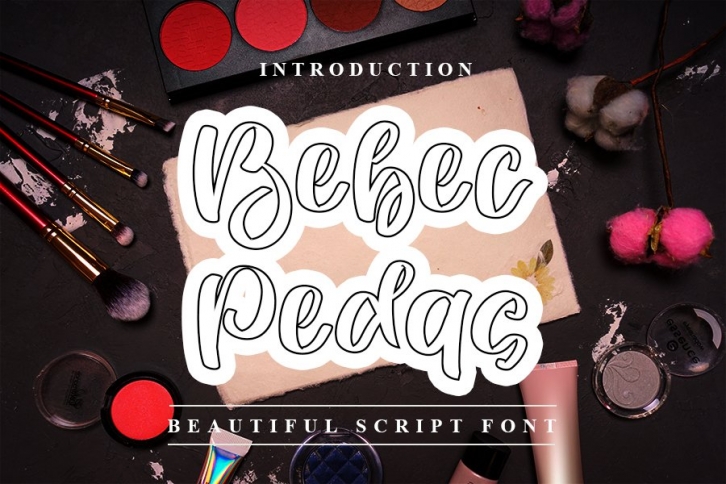
Bebec Pedas is a great font that was designed by NYA Letter. Imagine the amount of combinations you can create using this font! The archive is 7.40 MB and it was released on October 26, 2020. Bebec Pedas looks beautiful on wedding invitations, greeting cards, logos, posters, labels, t-shirt designs, logos, business cards and is perfect for use in ink or watercolor works, fashion, magazines, packaging and food menus, children's books and more!